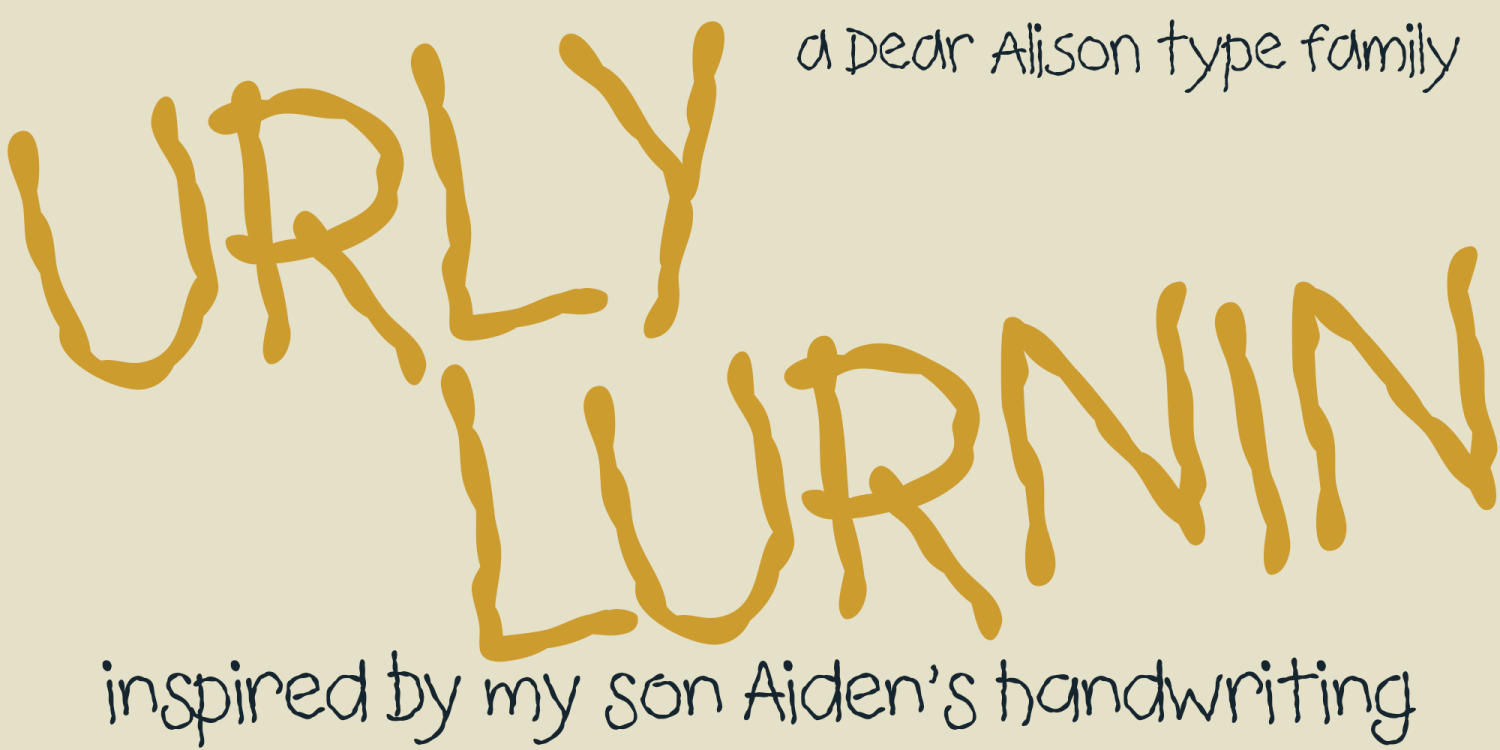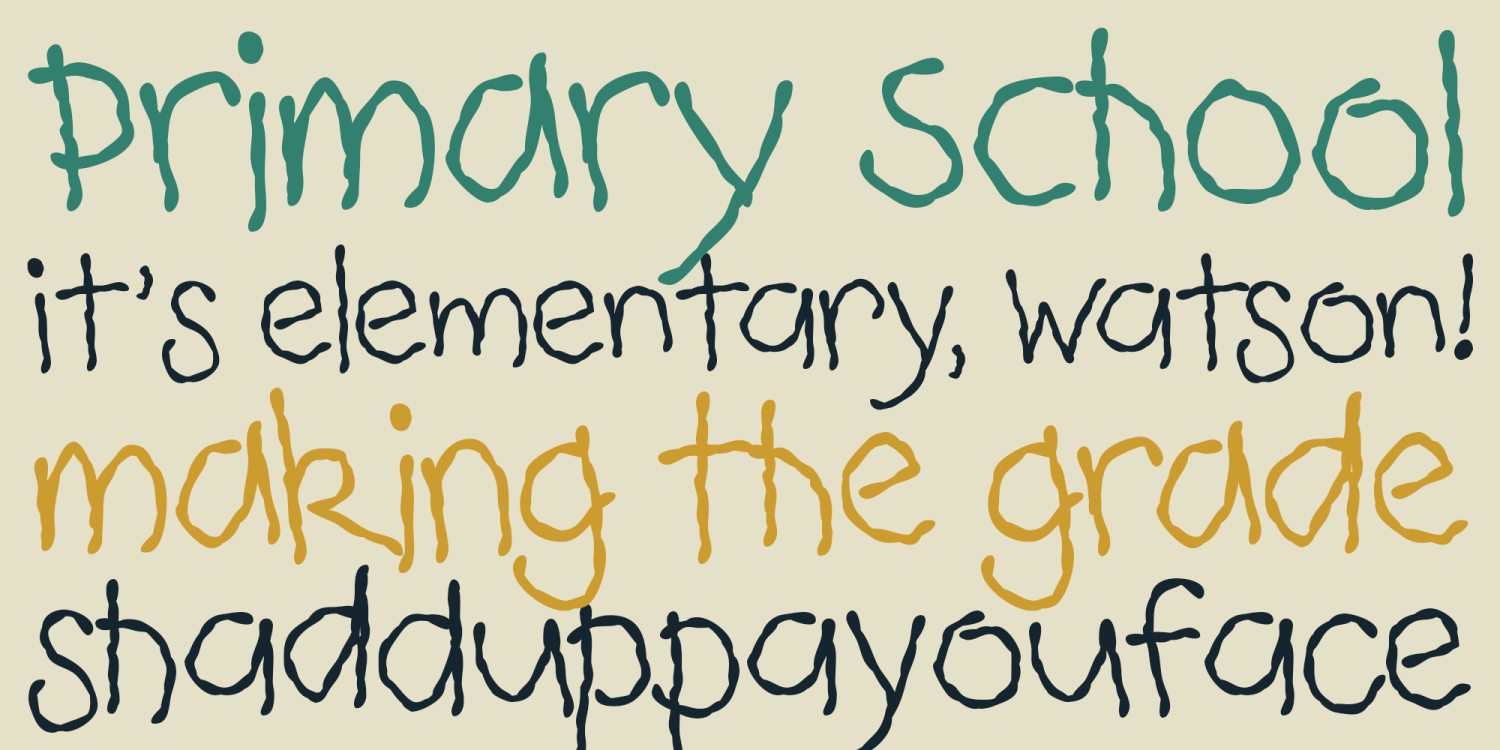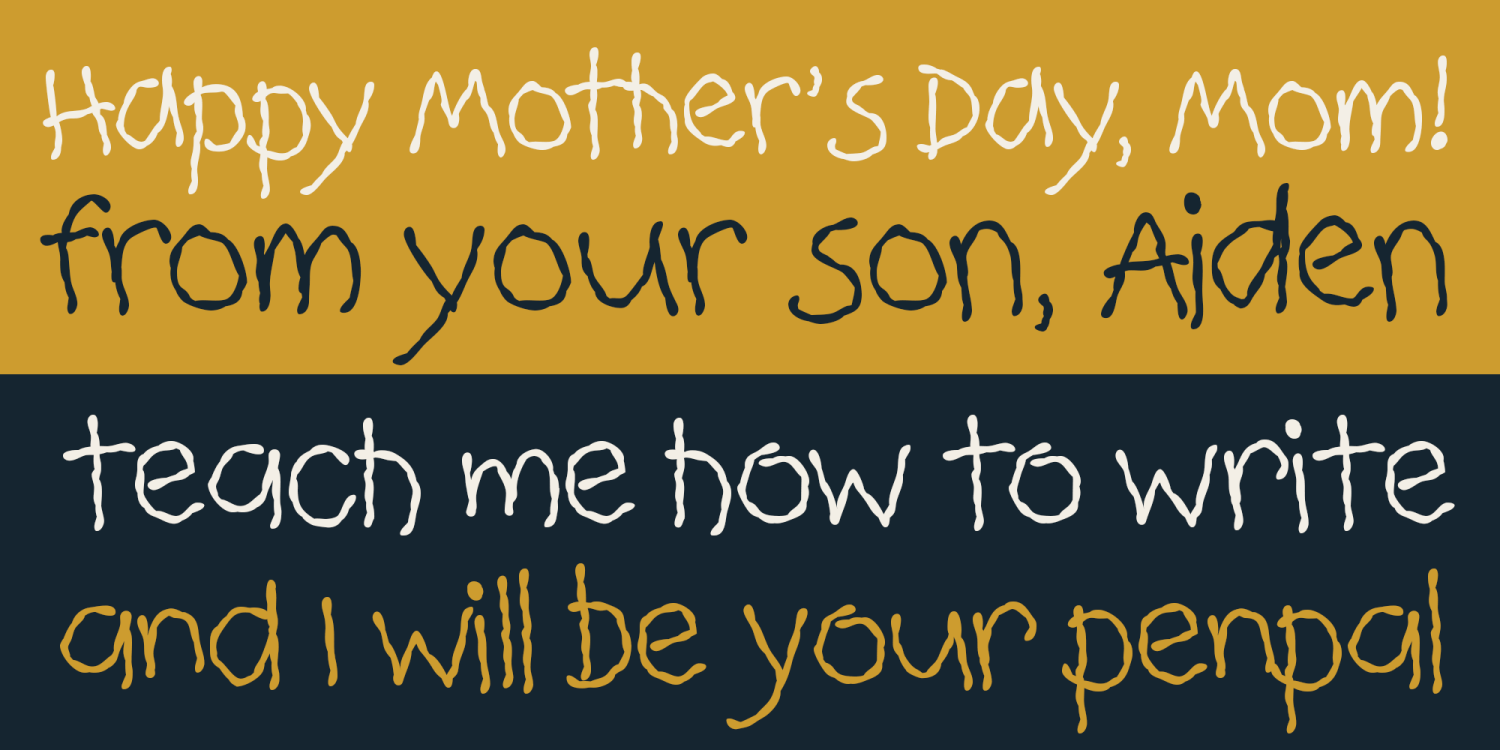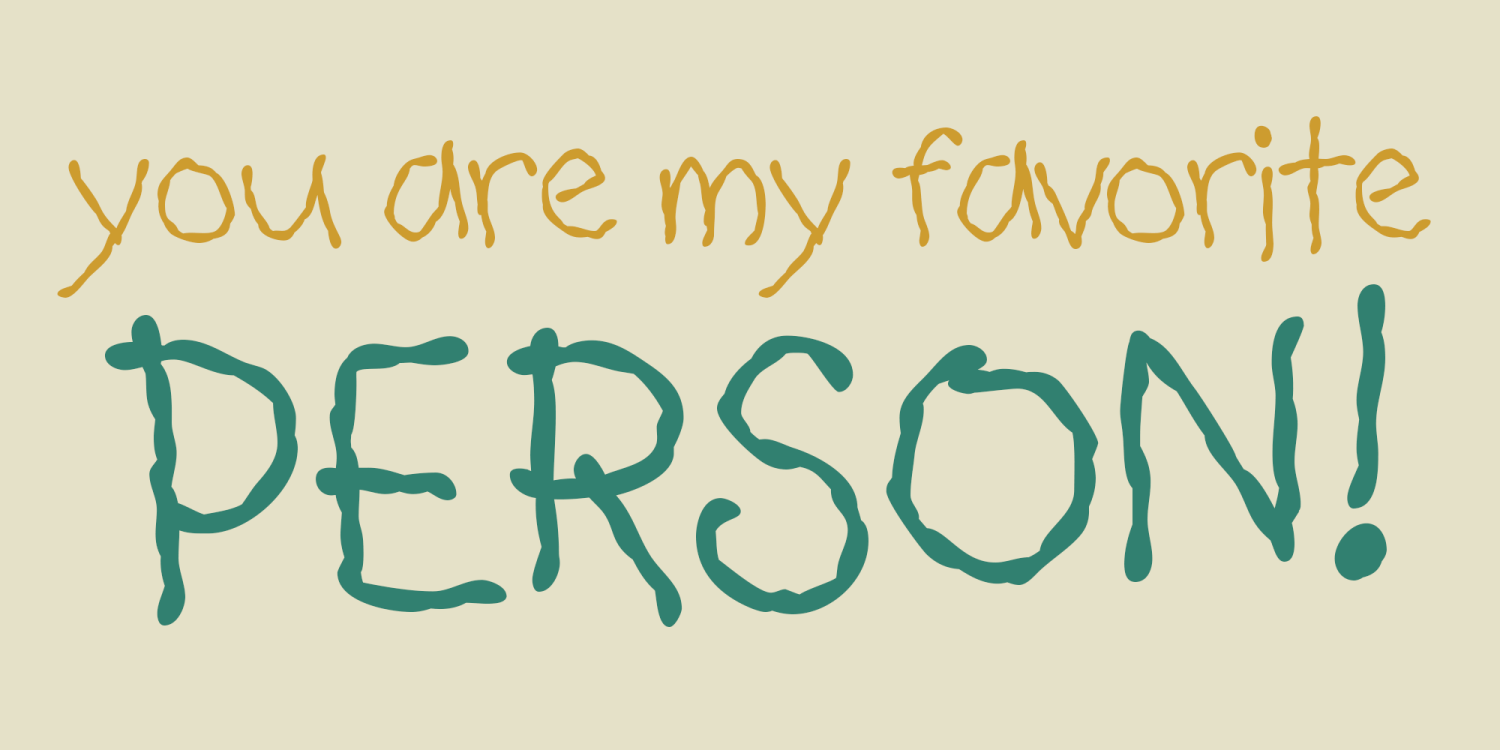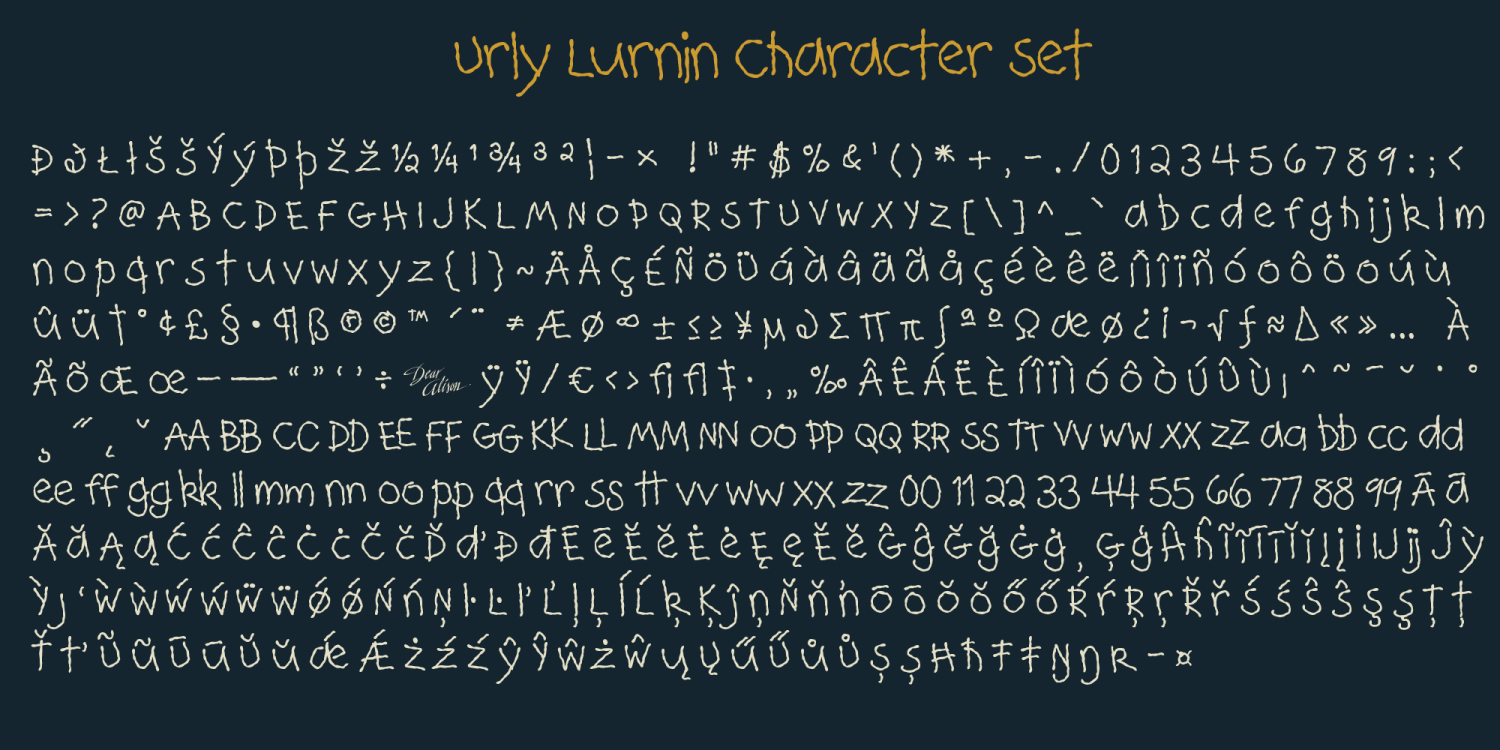
Urly Lurnin
What do kids do that most of us don't? Think outside the box, color outside the lines, and break all the rules. The same goes for my son Aiden's handwriting.
Urly Lurnin strives to faithfully mimic my son's handwriting for you to use, loaded with custom letter pairs to swap out standard typed duplicate letters and create a TRUE handwritten feel when you type. The wonders of Opentype technology do all the work for you, so you don't have to pick individual letters to change out.
Also included as a BONUS in this set is Urly Lurnin Two which swaps the alternate and original characters of Urly Lurnin, so that if you prefer the alternate lettering set to be the primary typed letters, you can easily have it either way.